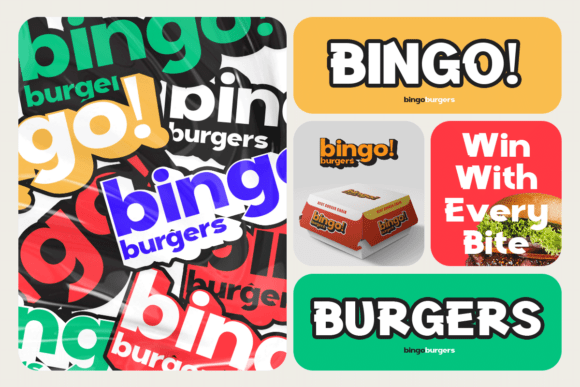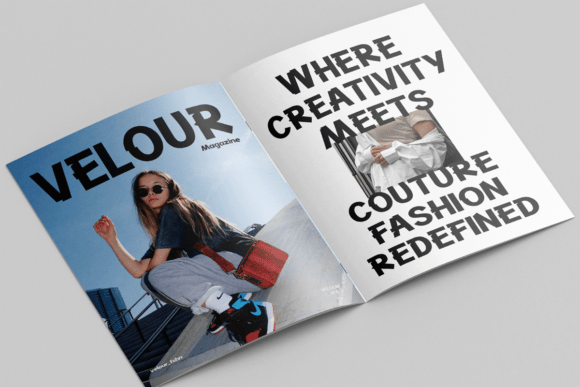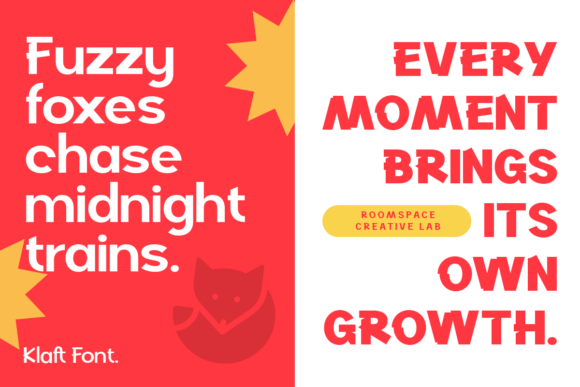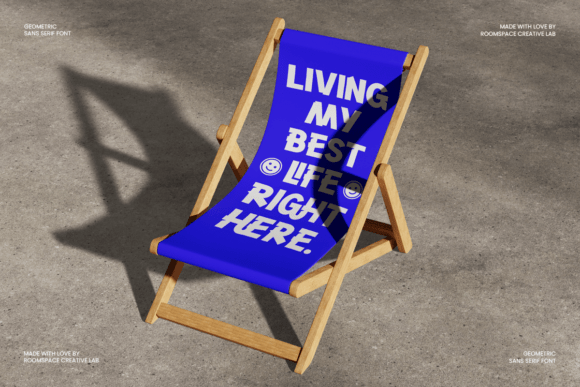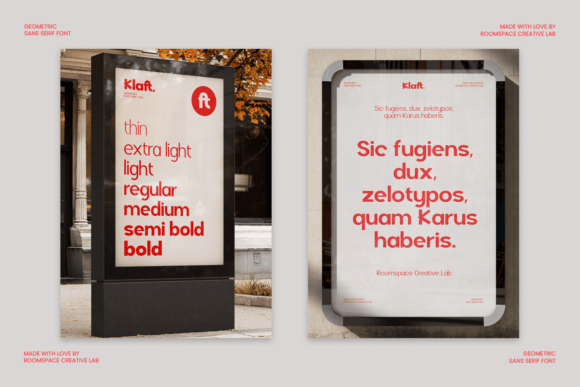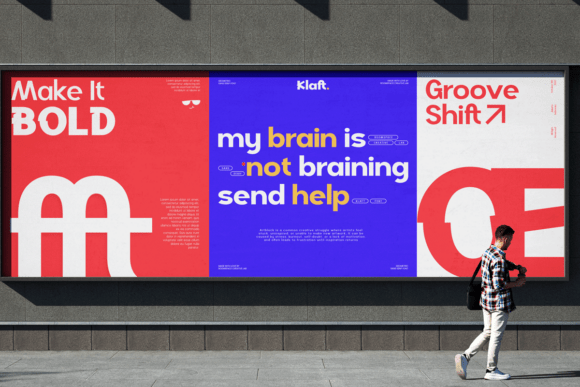
The Perfect Blend of Style and Clarity: Introducing Klaft Font
Imagine you’re working on a project, and the words just aren’t coming together as you envisioned. The message is clear, but the design is lacking that extra oomph. That’s when you start searching for the perfect font to elevate your work. And then, you stumble upon it – a bold, modern sans serif font that screams confidence and sophistication. This is exactly what Klaft Font is all about: bringing a fresh, confident personality to any design, blending simplicity with style.
Klaft Font is more than just a font; it’s a powerful tool for designers looking to make their message stand out. With its strong geometric shapes and clean visual balance, it’s the perfect blend of professionalism and modernity. Whether you’re working on a digital or print project, Klaft Font is sure to bring clarity and impact to your work.
Klaft Font Key Features
- Font Family: Klaft is a sans-serif font family designed for modern and clean typography.
- Font Size: Offers a wide range of font sizes, from 8pt to 72pt, with precise control over scaling and legibility.
- Unique Characteristic: Klaft’s distinctive x-height and geometric shapes create a unique visual identity, making it suitable for branding and corporate design.
- Language Support: Supports over 100 languages, including Latin, Cyrillic, Greek, and many Asian languages, making it a versatile choice for global projects.
Klaft Font Review
Overall, I’m impressed with the Klaft font. It’s a modern sans-serif font that can be used for a variety of purposes, from digital displays to printed materials. Here are some things that work well:
- ✨ Unique aesthetic: The Klaft font has a distinctive look that sets it apart from other sans-serif fonts.
- ✨ Versatility: It’s suitable for both body text and headings, making it a great choice for designing websites, magazines, or any other type of publication.
- ✨ Good legibility: The font is easy to read, even at small sizes, which is essential for digital displays.
- ⚠️ Limited character set: The font may not include all the characters you need for certain languages or special symbols.
- ⚠️ Not suitable for long blocks of text: While the font is great for headings and short paragraphs, it may not be the best choice for long blocks of text due to its condensed style.
- ⚠️ Limited font weights: The font comes in a limited range of weights, which may not be suitable for all design projects.
Overall, I think the Klaft font is a solid choice for designers looking for a modern sans-serif font with a unique aesthetic. However, it’s essential to consider its limitations and ensure it meets your specific design needs.
For the best results, pair the Klaft font with a clean and minimalist design aesthetic. Use it for headings and titles to add a touch of sophistication. Experiment with different font sizes and colors to create visual interest.
The Klaft font is perfect for:
- Business cards and stationery
- Editorials and publications
- Web design and digital marketing
Q: What is the recommended font size for Klaft Font?
The recommended font size for Klaft Font varies depending on the context and intended use. However, as a general guideline, we recommend using font sizes between 12 and 24 points for body text, and 48 points or larger for headings. This will ensure optimal readability and legibility.